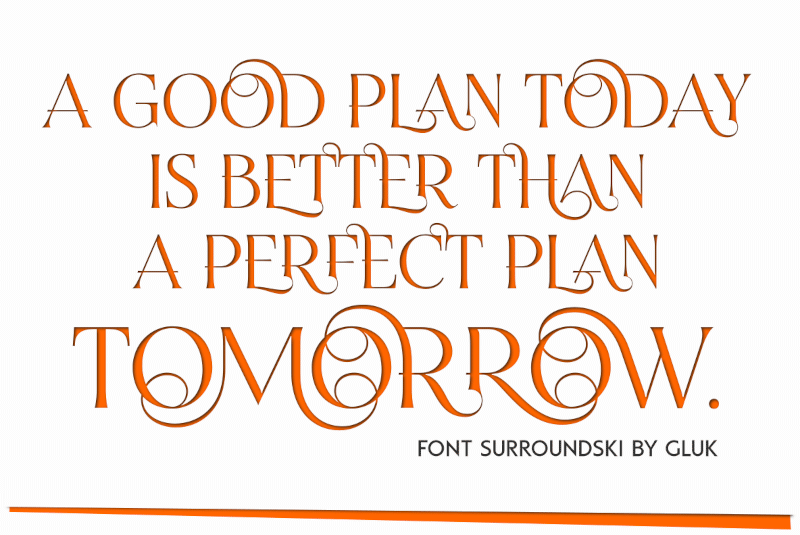
Decorative, semi-serif font Surroundski is allCaps typeface with multilingual, contextual alternates (dynamically changing glyphs to enhance text flow) Technical info: To be able to use Surroundski font you need to have installed program with Opentype features (Contextual Alternates) support. Font Surroundski for commercial use (with Surroundski Basic) can be purchased at: https://glukfonts.pl/r/Surroundski |